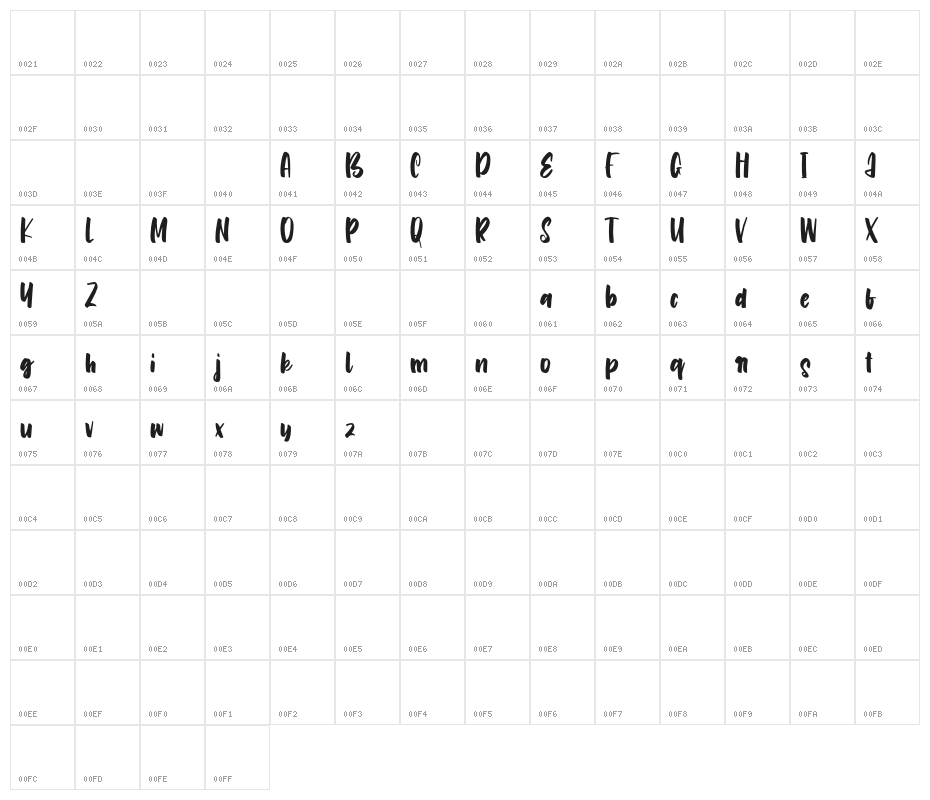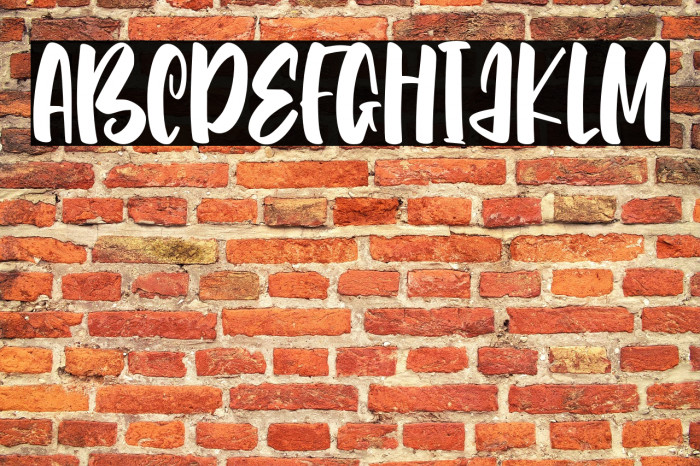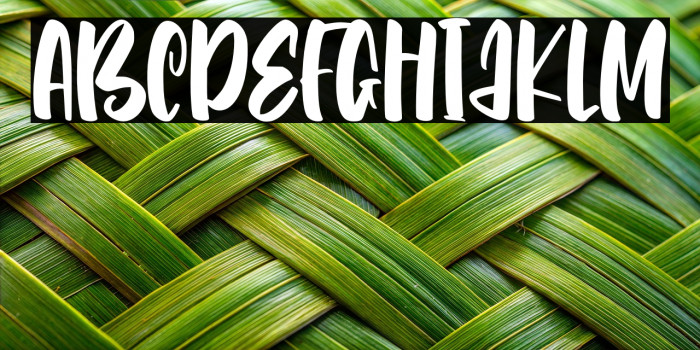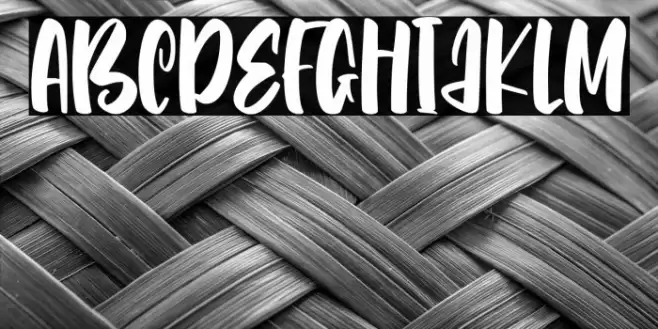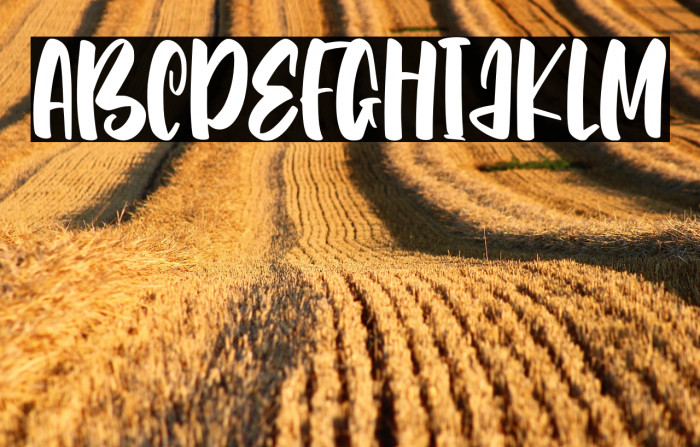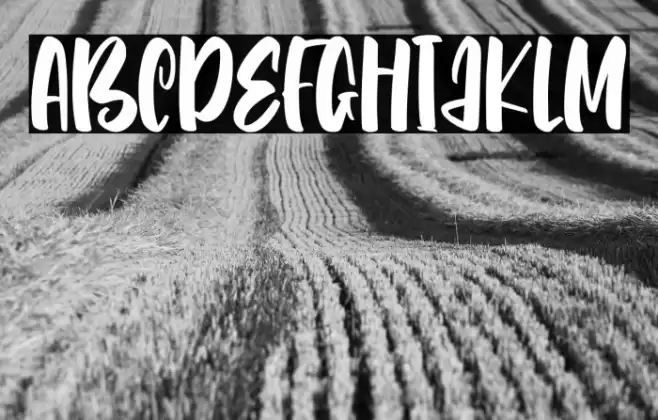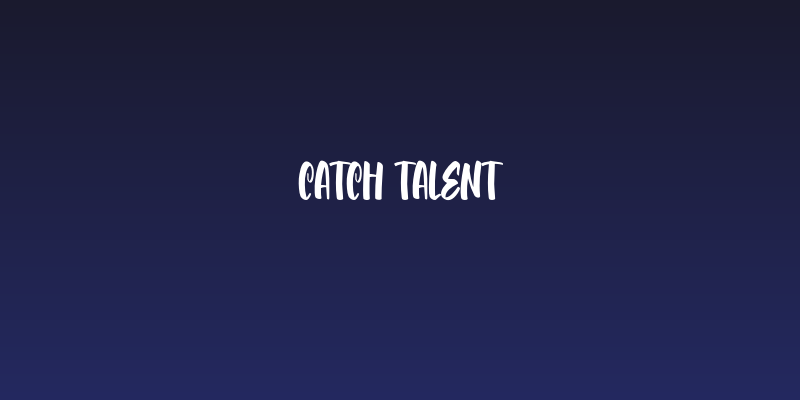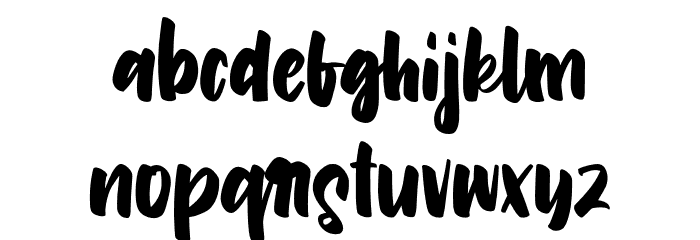
Catch Talent Font
Catch Talent Description
This font features a bold and expressive handwritten style, characterized by its thick strokes and playful curves. The uppercase letters are tall and commanding, while the lowercase letters maintain a consistent flow, adding to the overall casual yet dynamic feel. The font's design is reminiscent of brush lettering, with a natural, fluid motion that suggests a sense of creativity and spontaneity. The characters are well-spaced, ensuring readability while maintaining an artistic flair. This font is perfect for projects that require a personal touch or a sense of movement and energy.